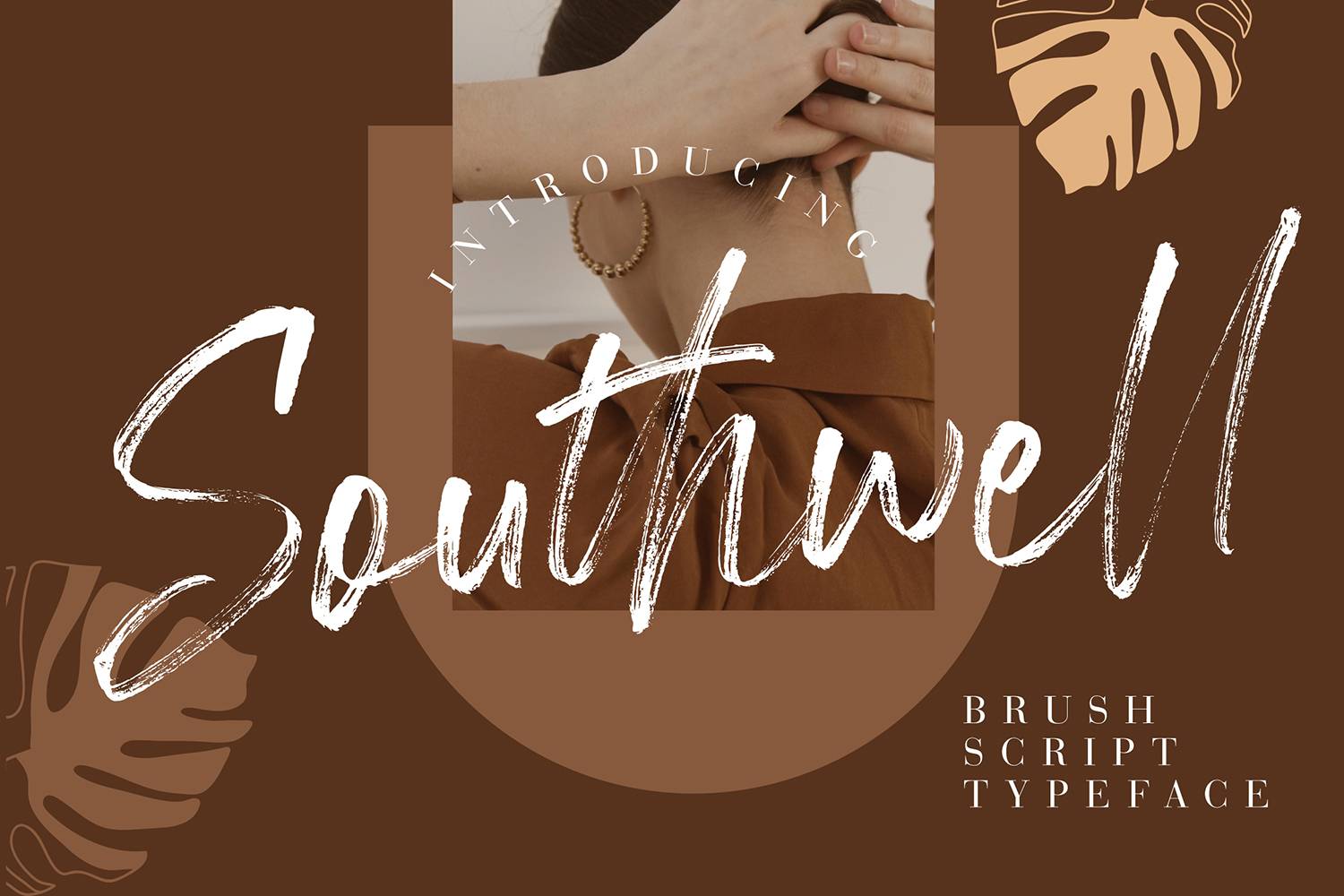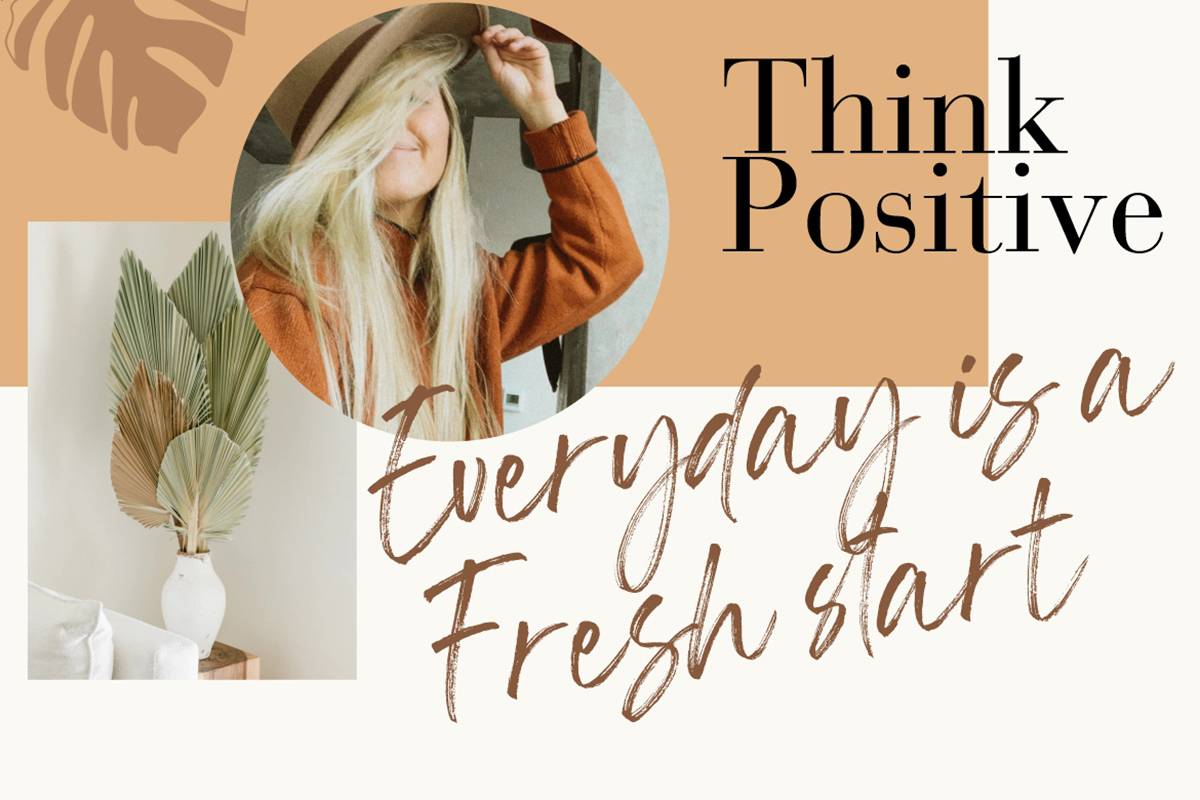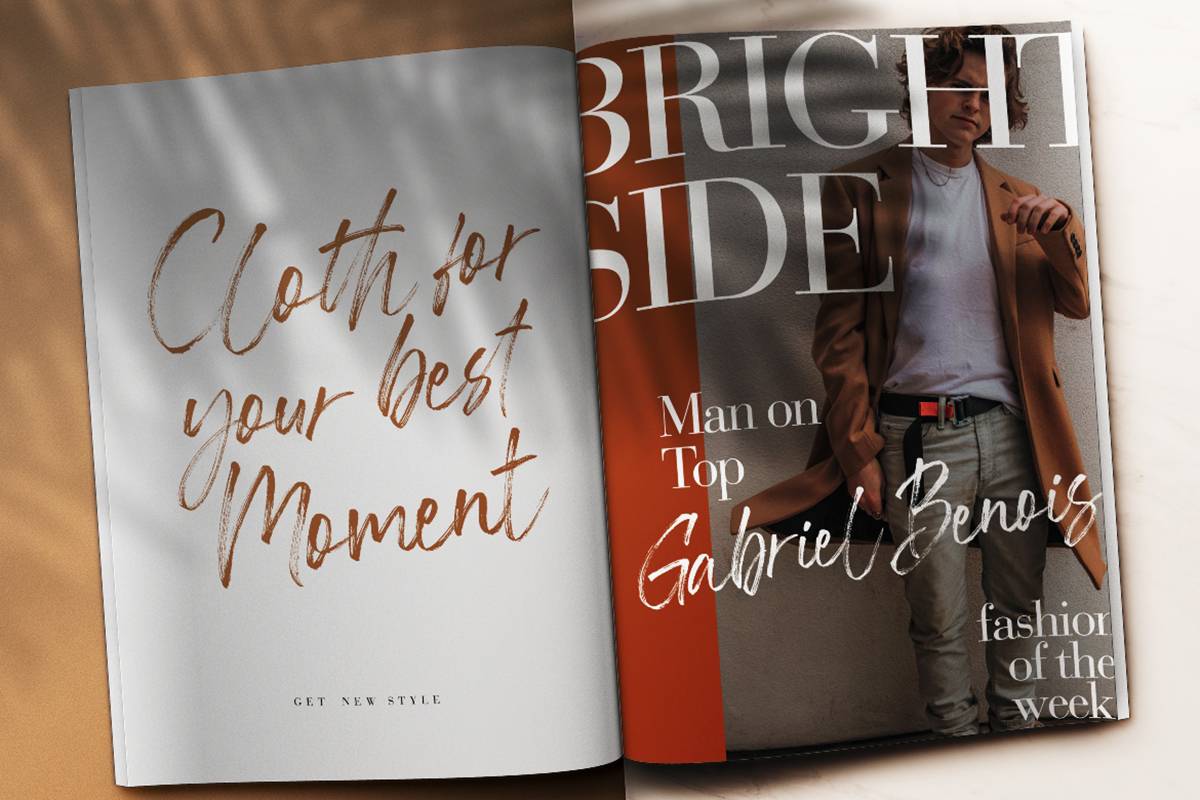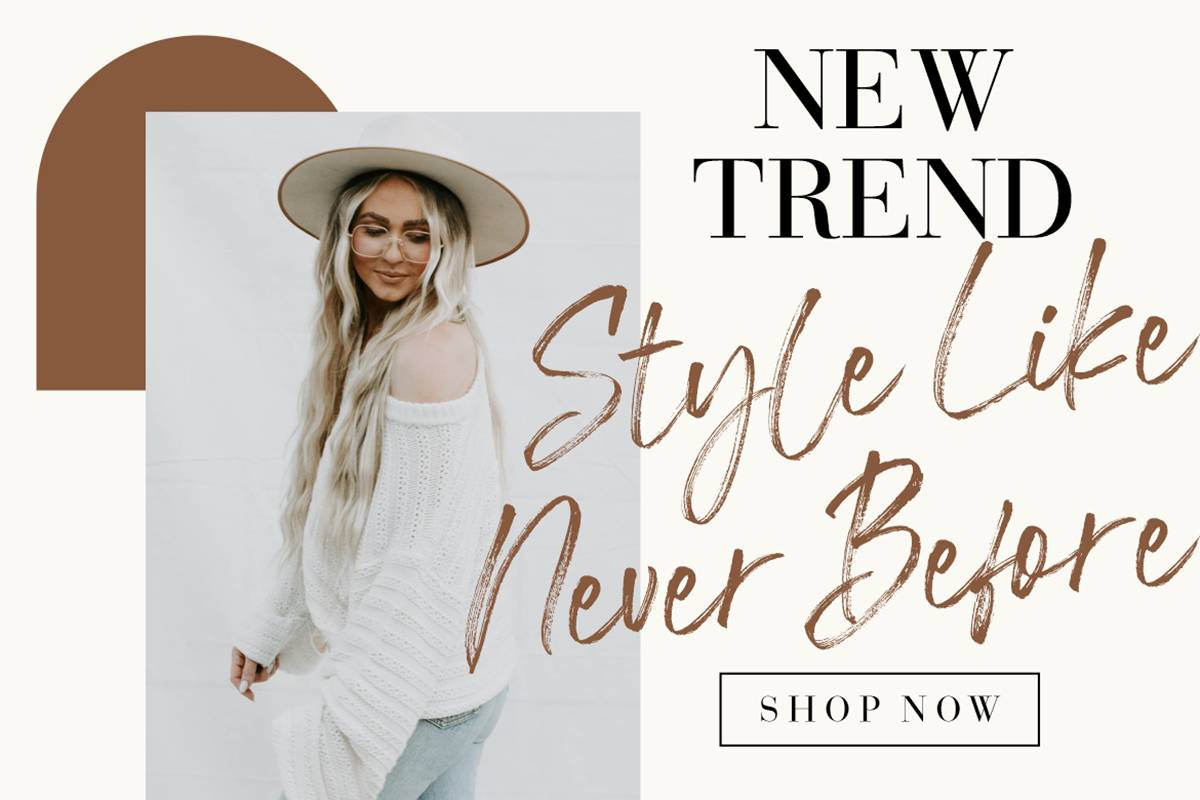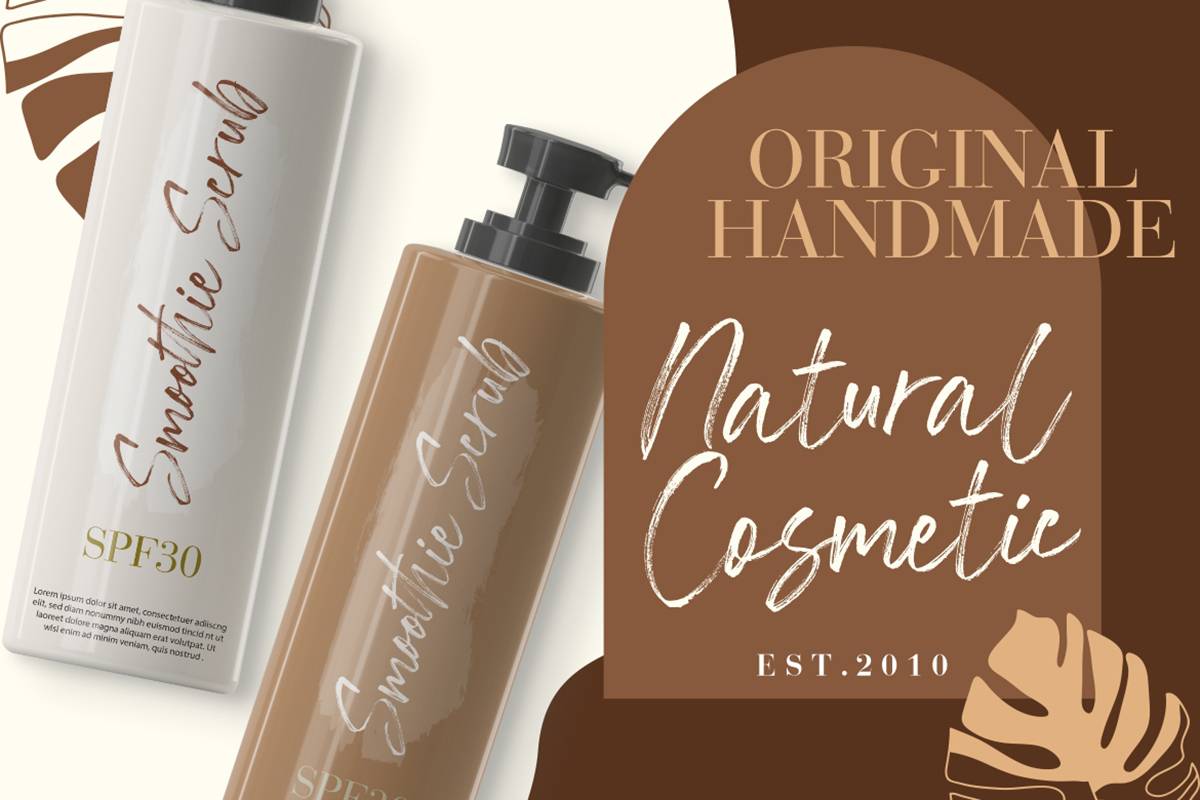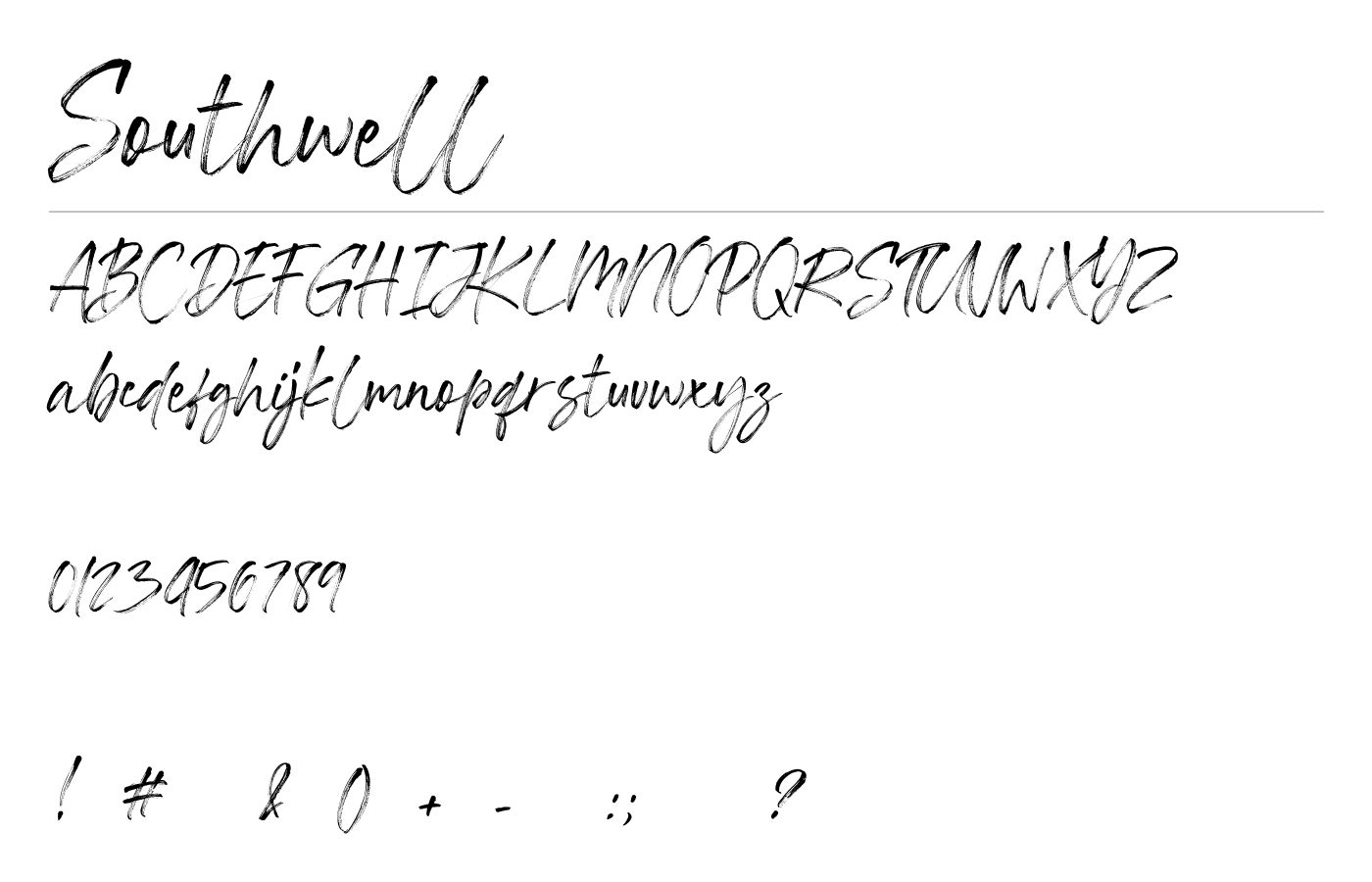
Southwell is a lively and expressive handwritten script font with a casual, brushstroke texture that gives it a natural and artistic feel. Its light to medium weight and loose letterforms make it perfect for adding a personal, creative touch to branding, invitations, social media graphics, and packaging where a fresh, approachable style is desired. This font works best in large sizes for headlines or display uses where its textured details can truly shine.
Southwell Font
About Southwell Font
| Font family | Southwell Font |